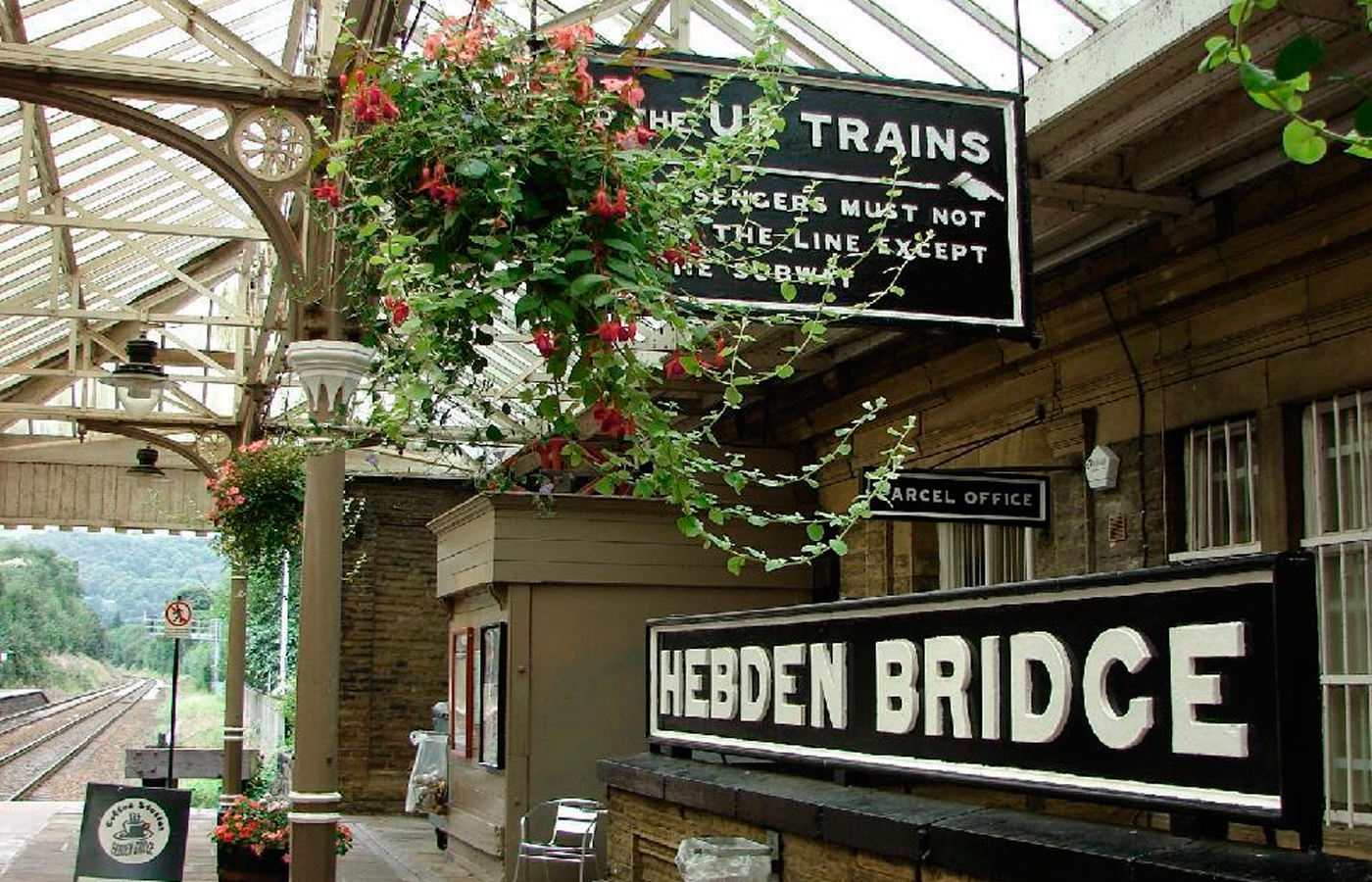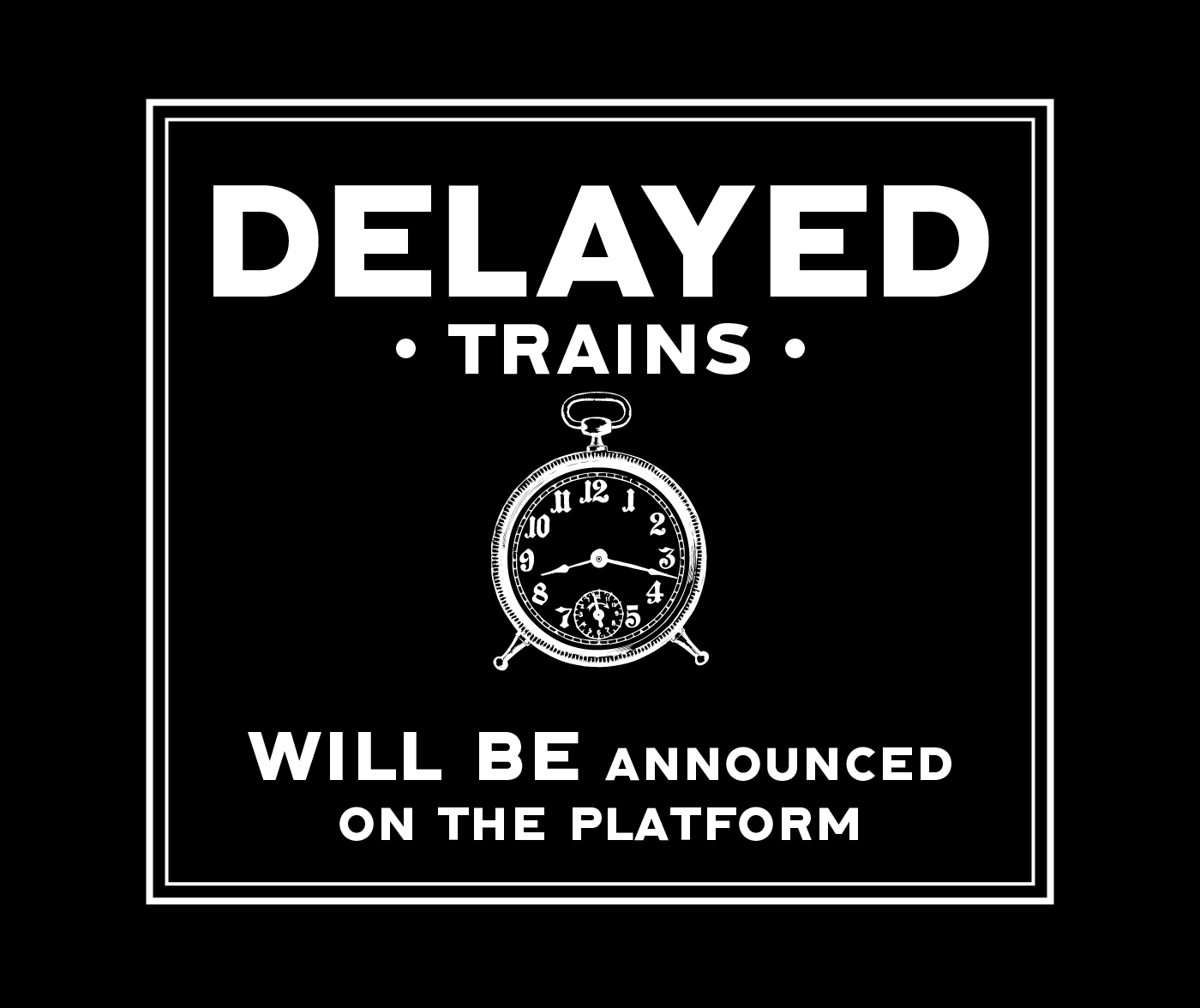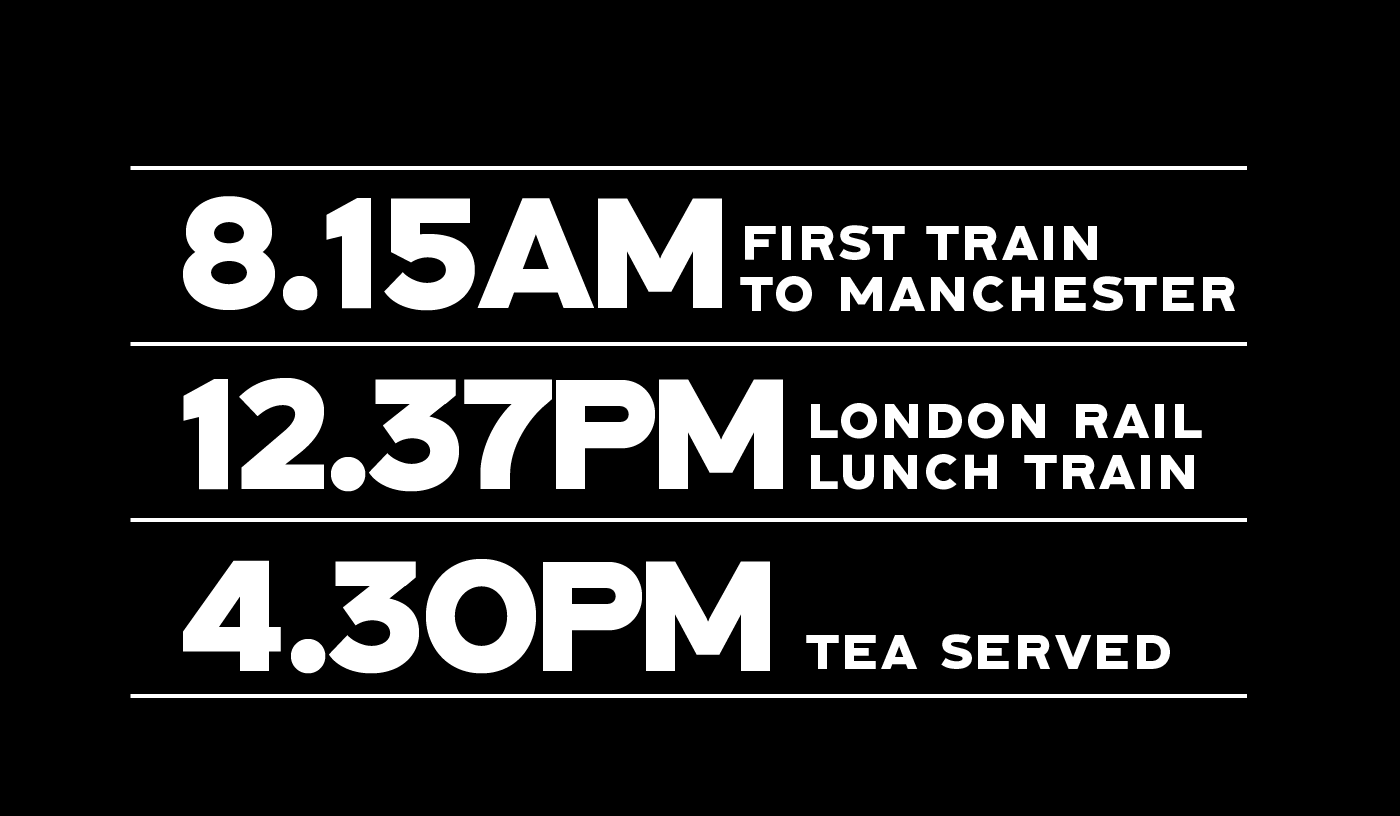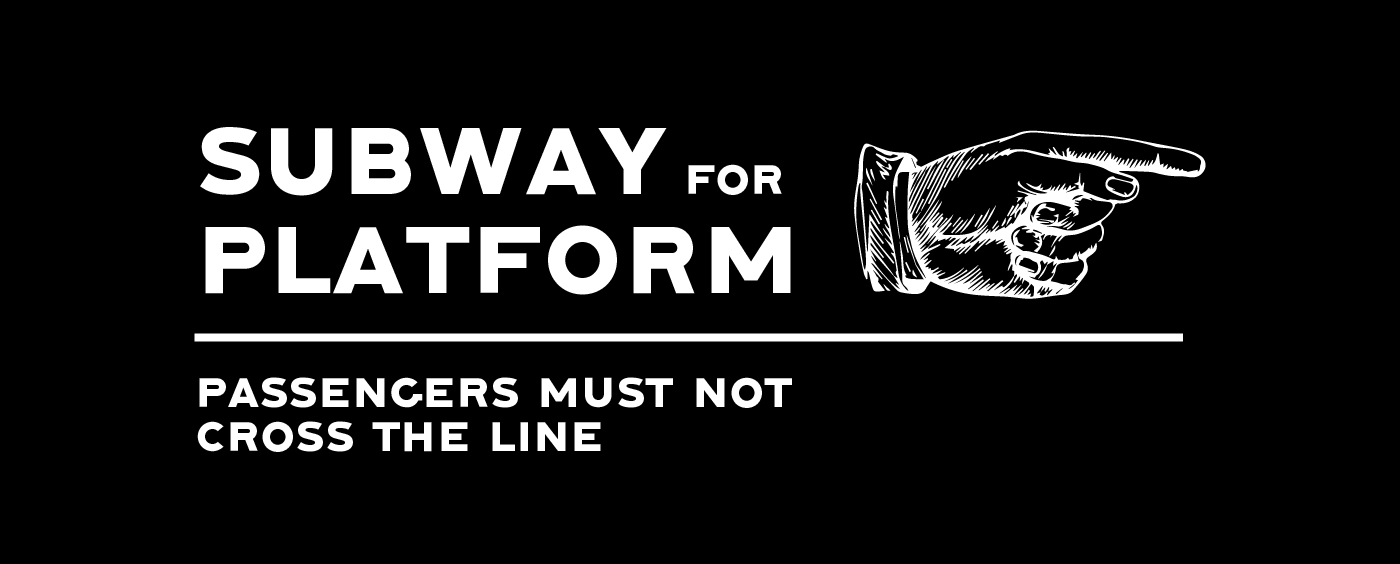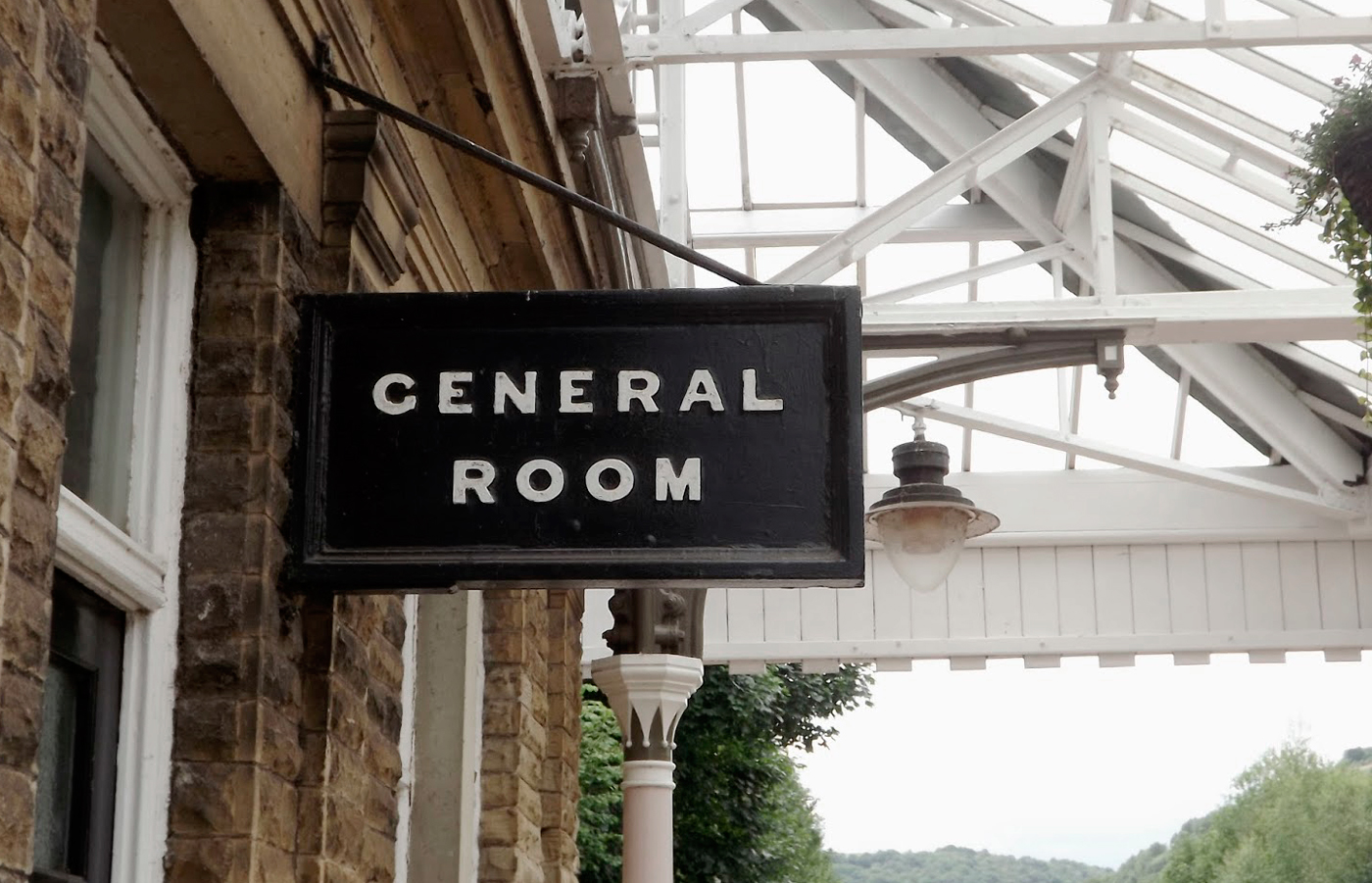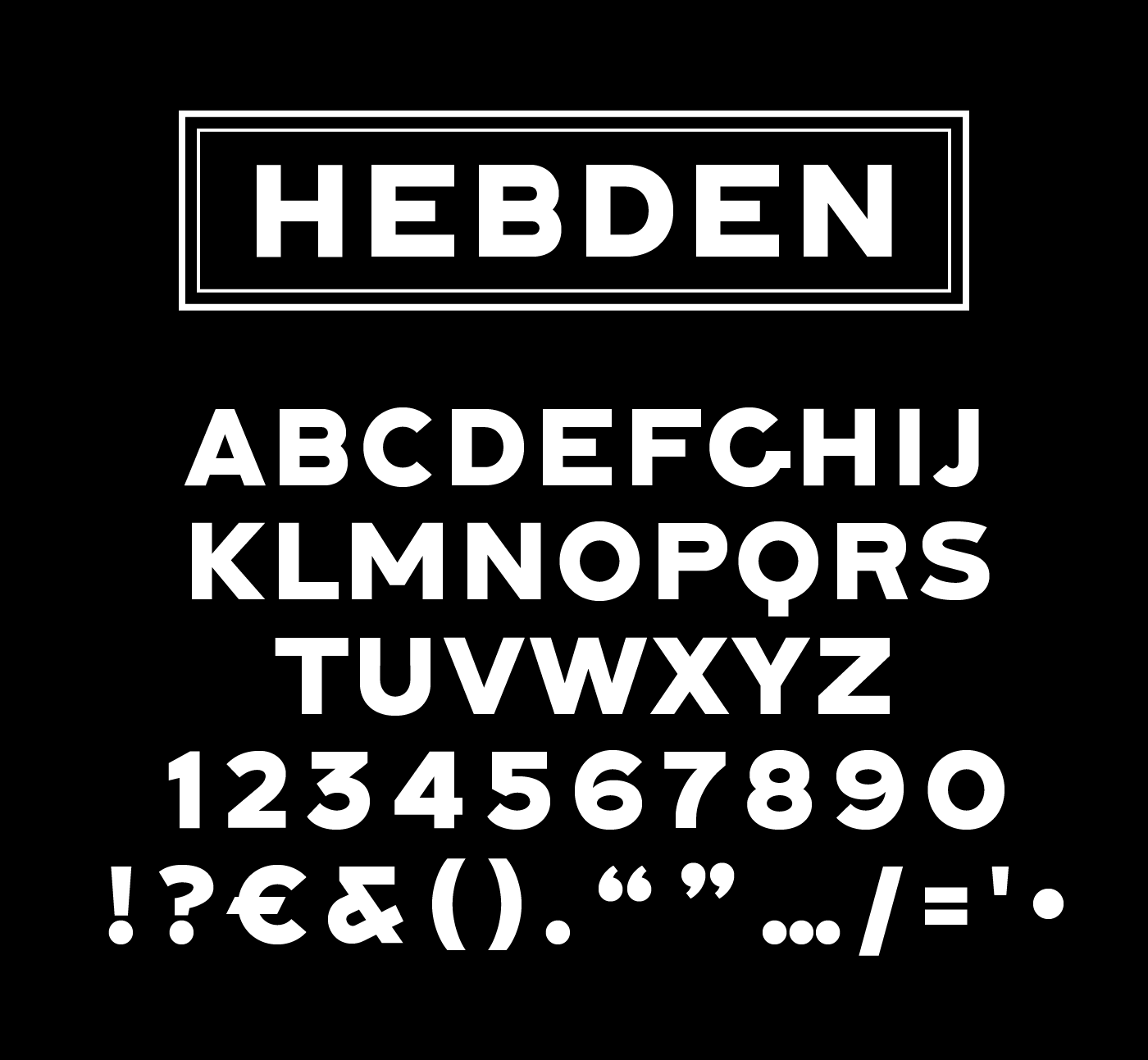
Hebden is a typeface inspired by the original signs at Hebden Bridge train station in Yorkshire. The typeface is extremely robust but retains its hand-made history with some humanistic touches.